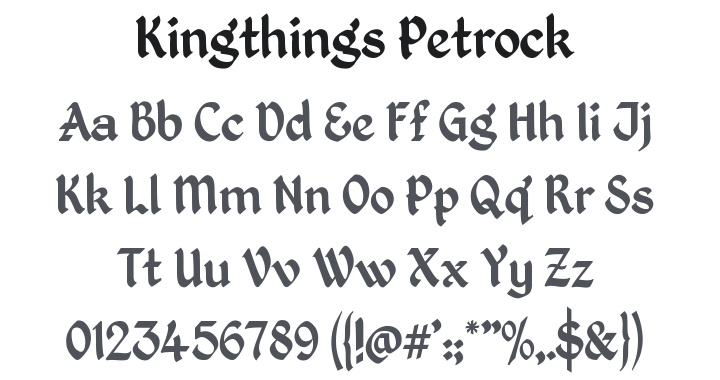
Kingthings Petrock Font Family
About Kingthings Petrock
These are based on a labelling face I found used in a tiny city church in central Exeter - it was in a display case regarding bell ringing. The light font was designed to make Kingthings Petrock more useable, and may end up as an Italic too. It has had some modification to make it suitable as a Windows font but retains most of the flavour of the original.